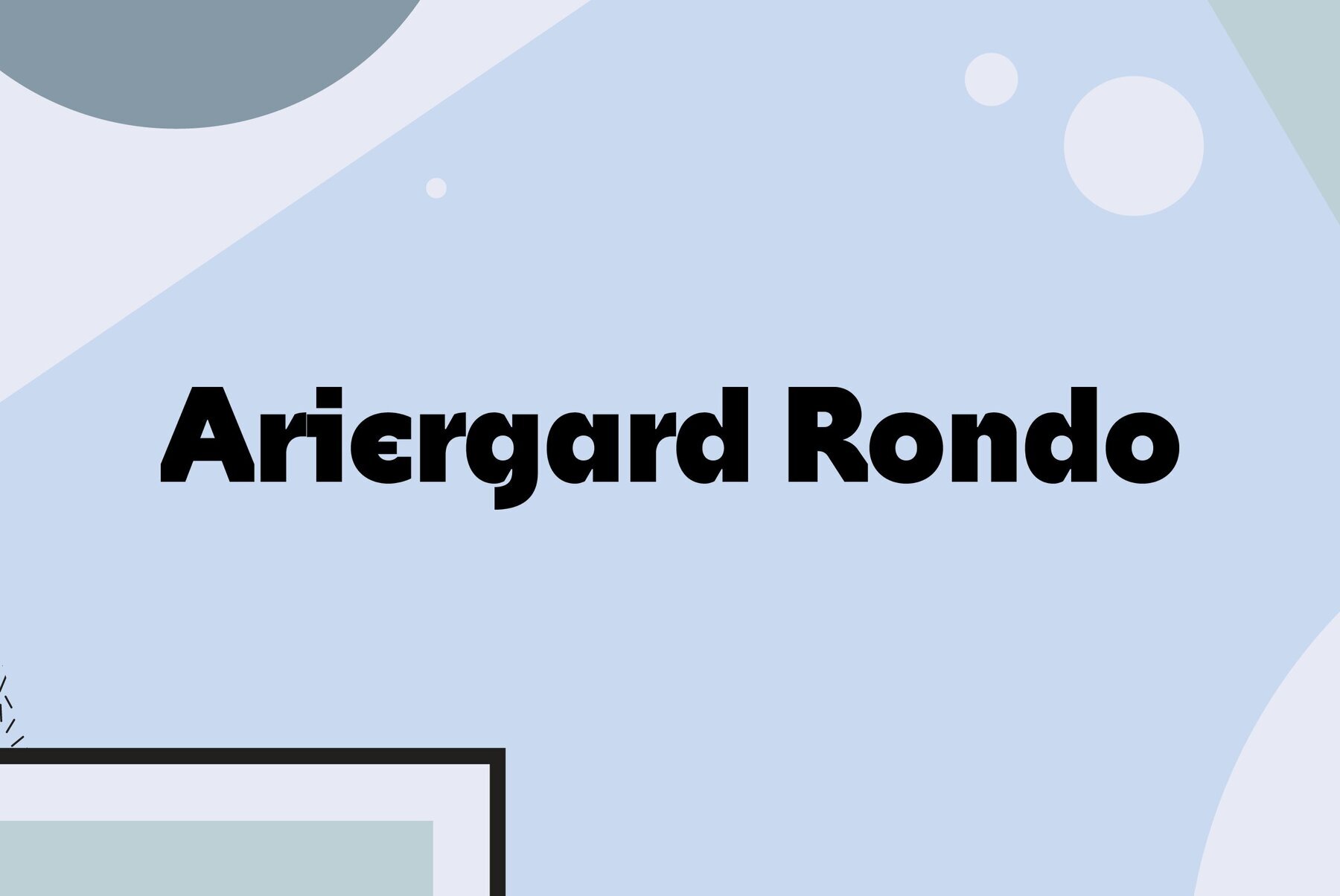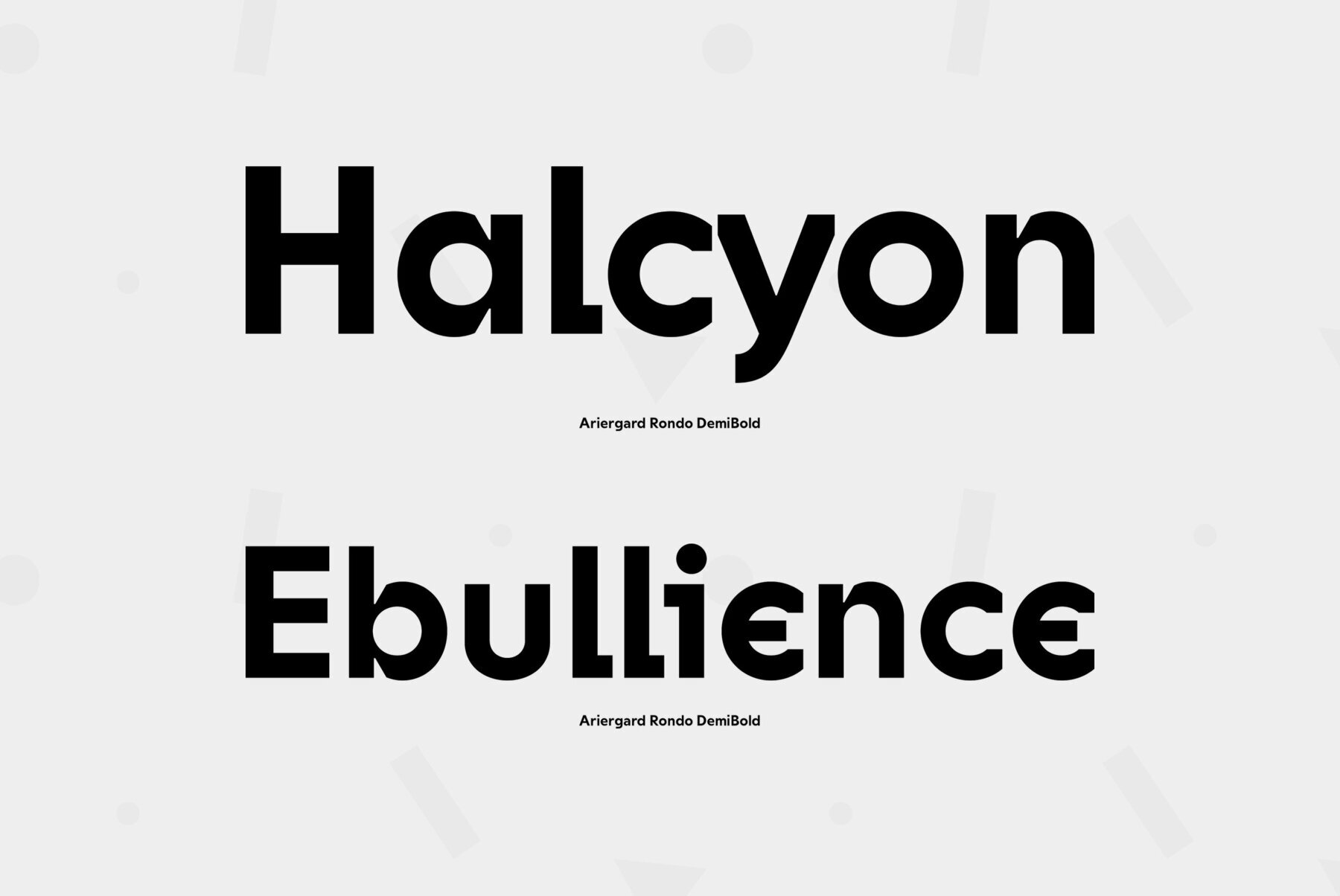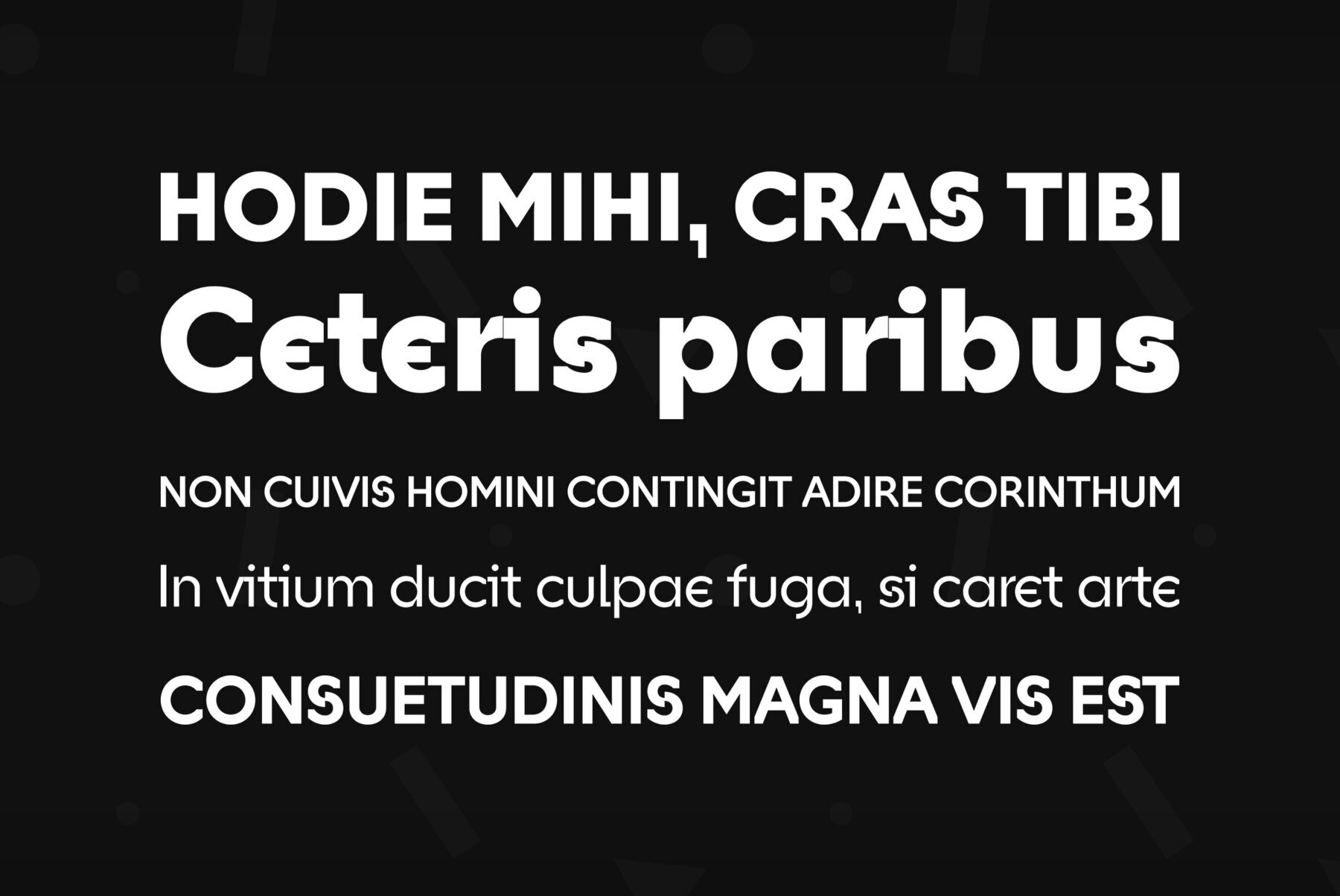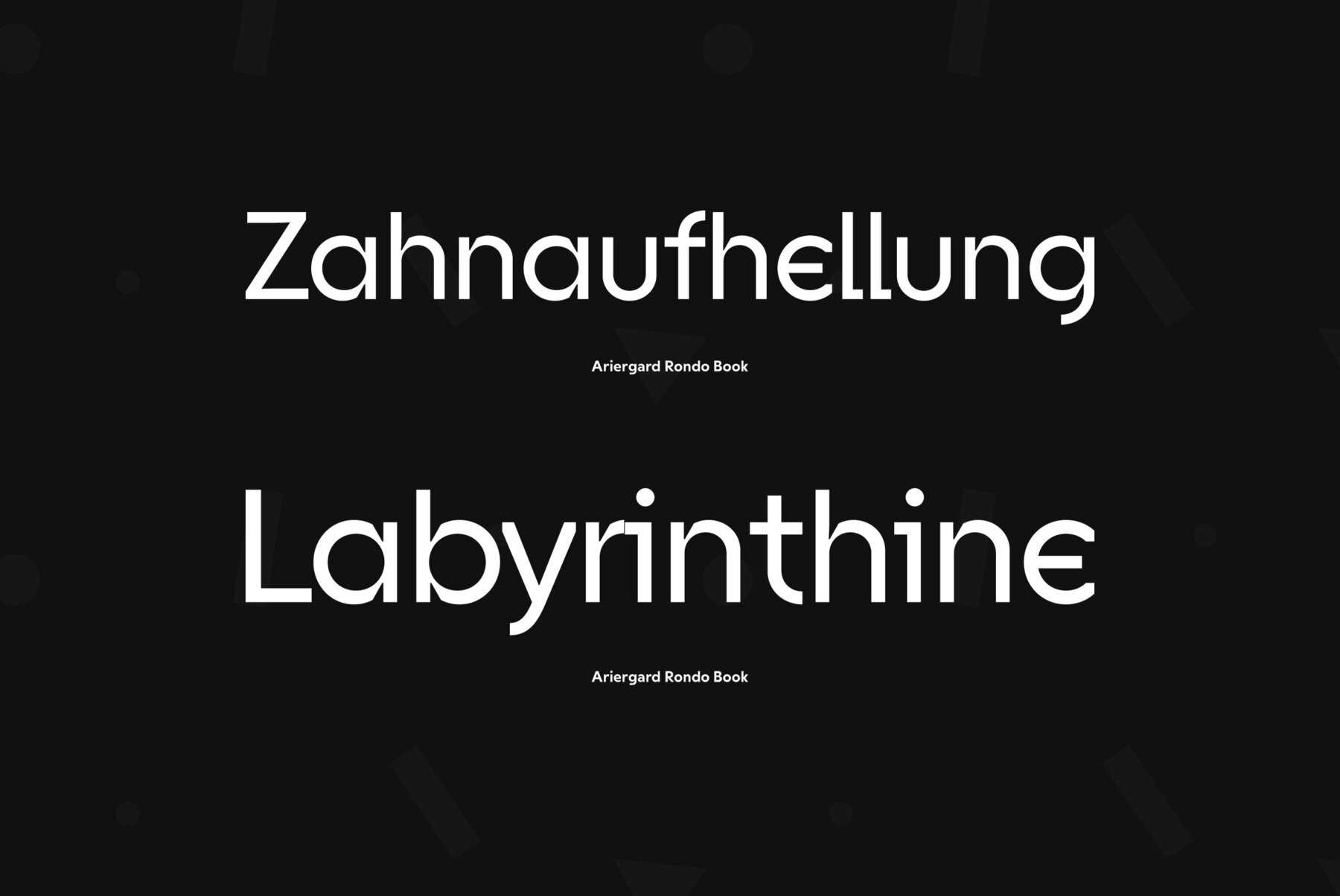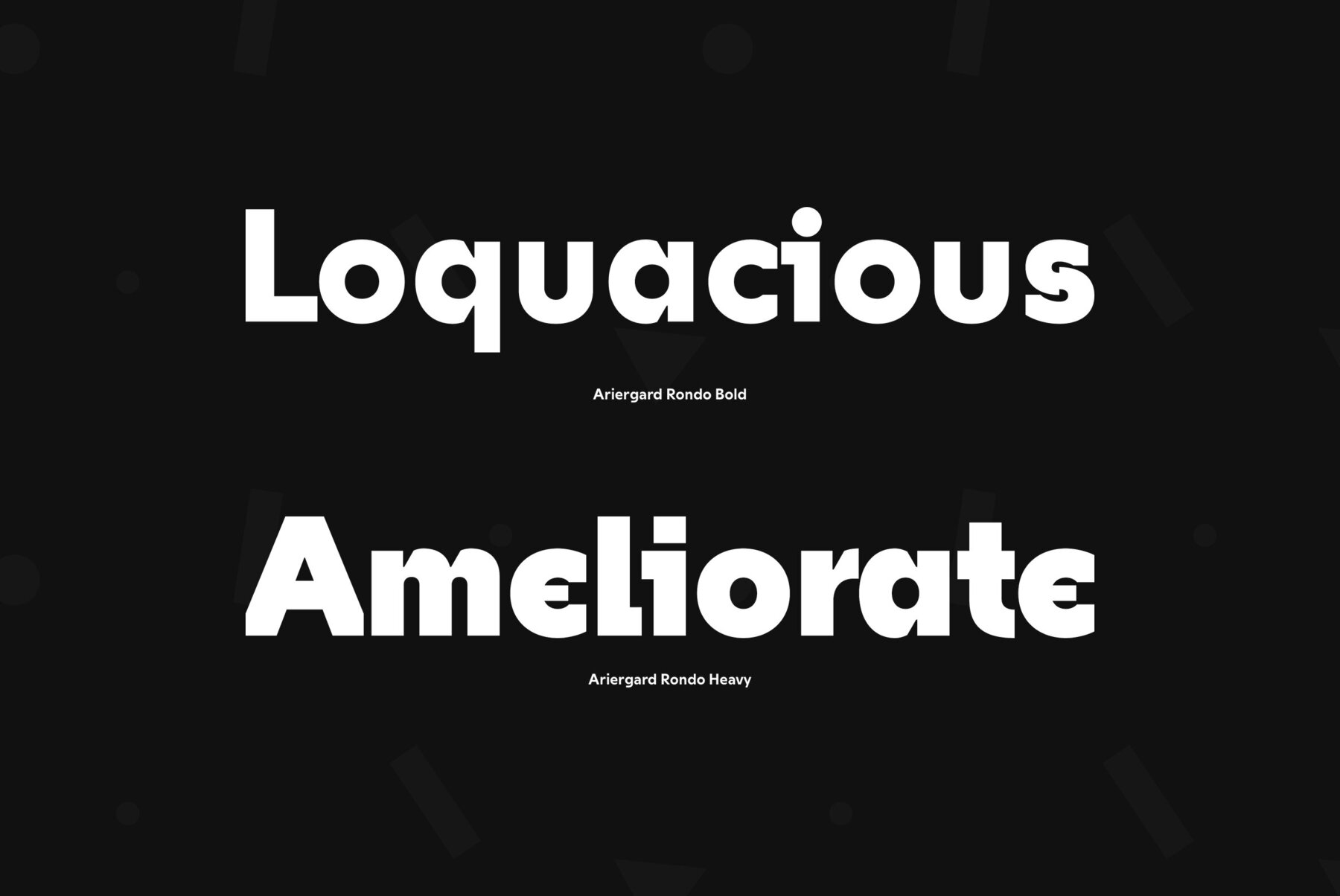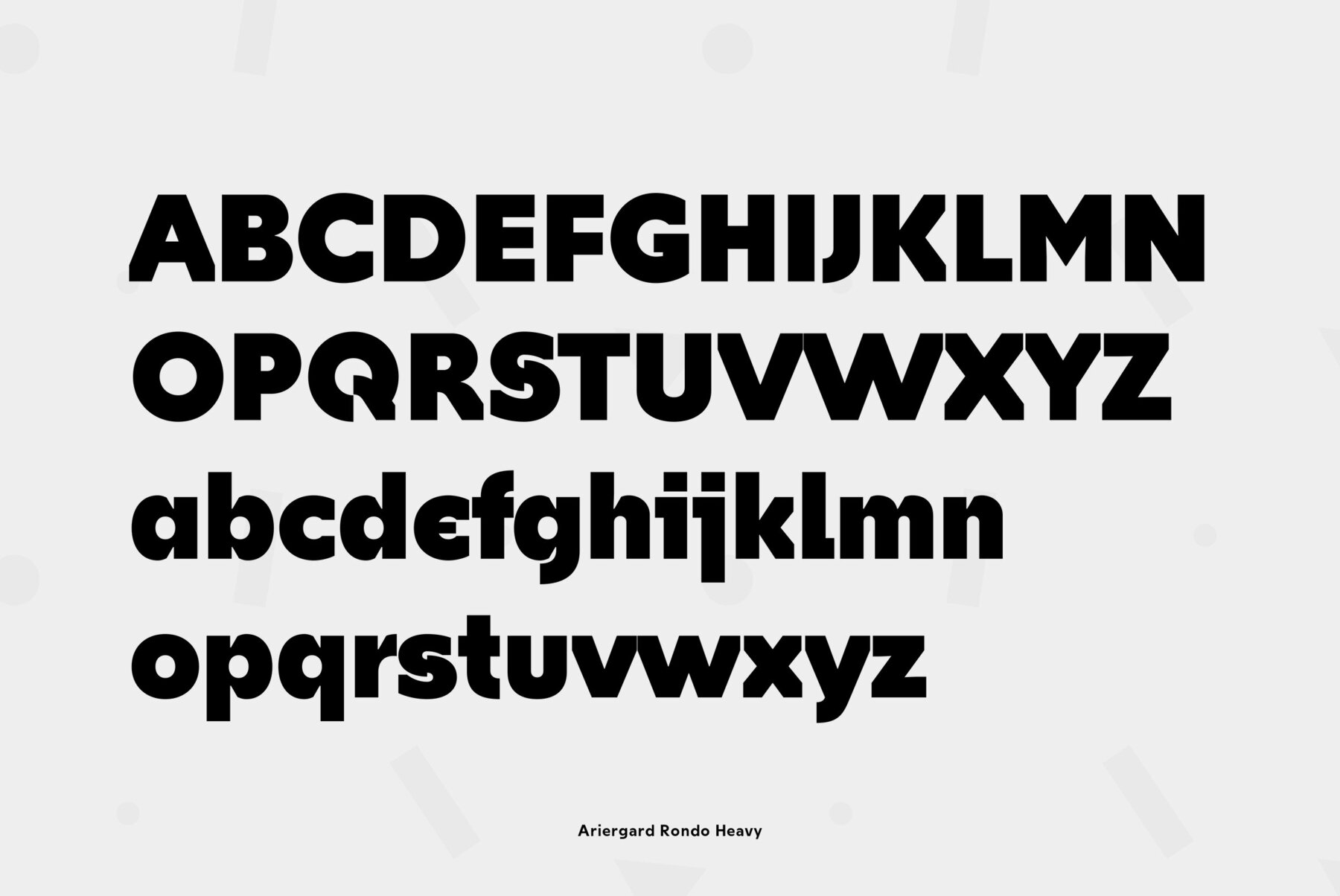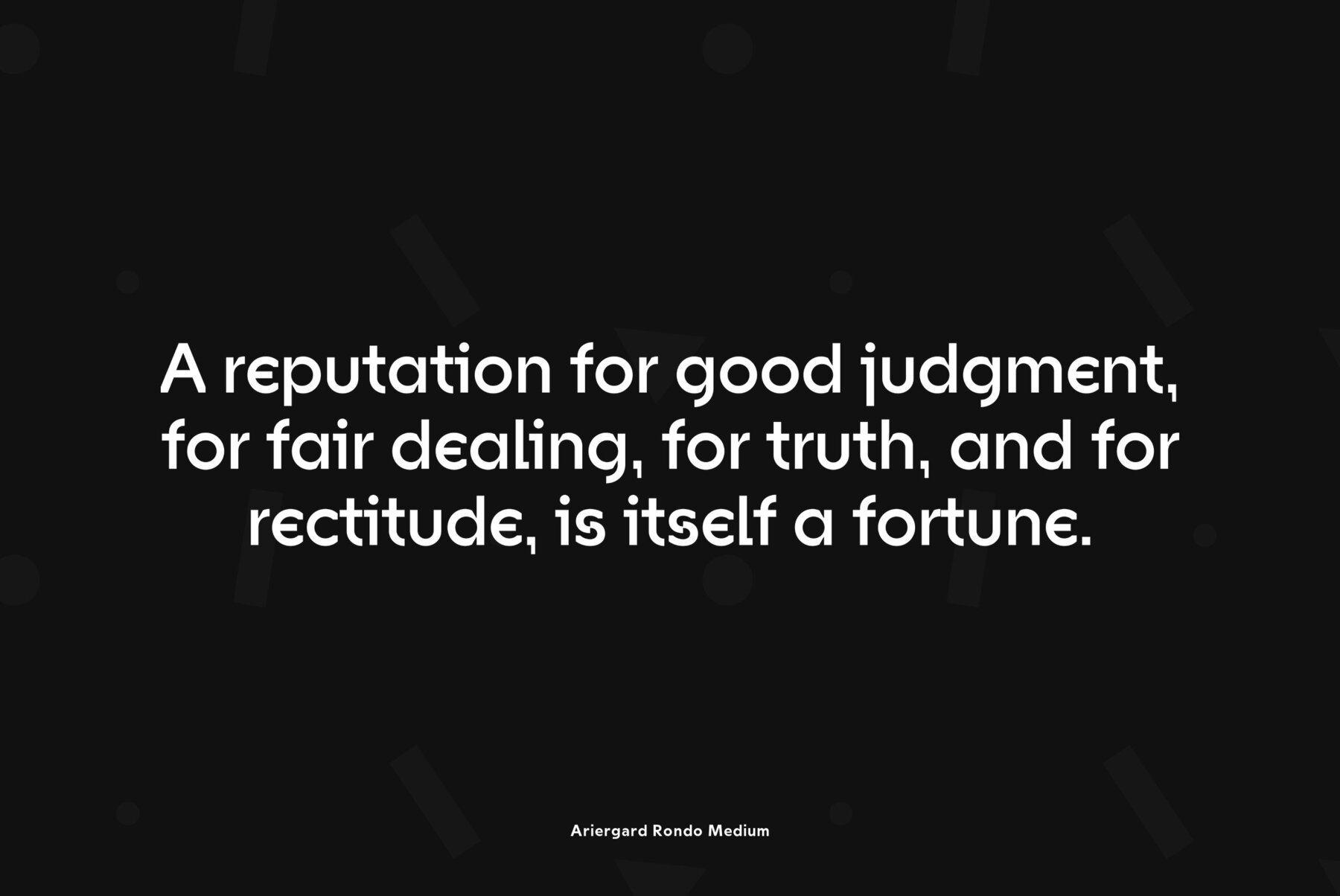
Ariergard Rondo
Type family of five weights was designed by Oleg Karpinsky in 2005 and licensed by ParaType. AriergardRondo is supplemental to Ariergard by the same author designed earlier. It differs with sharp geometrical letterforms and with circular shapes of round letters.